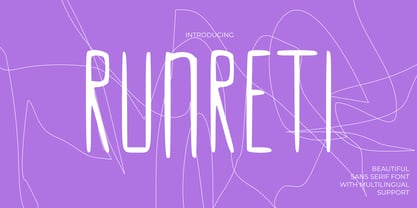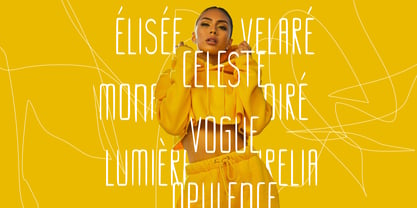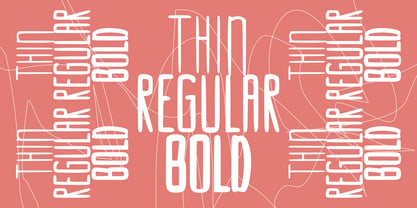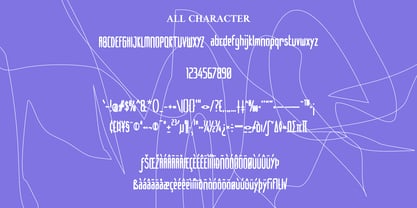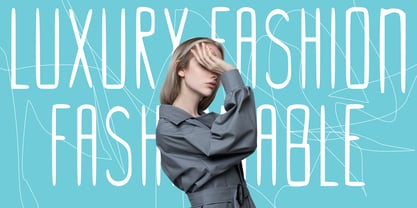
Runreti
by Mei Suseno
The Runreti Font Family was designed by Wahyu Eka Prasetya, Mei Suseno and published by Mei Suseno. Runreti contains 3 styles and family package options. More about this family
This font features a tall, condensed, and highly stylized display design with a futuristic and experimental feel. Its elongated letterforms and geometric structure create a strong visual identity that stands out in modern and creative projects. The font combines sharp edges with smooth curves, giving it a unique balance between elegance and sci-fi aesthetics.
Perfect for posters, branding, music covers, fashion editorials, digital art, and futuristic themes, this typeface delivers a bold and artistic personality. The extended characters, decorative symbols, and multilingual accents make it versatile for both creative and international design use.
Designers: Wahyu Eka Prasetya, Mei Suseno
Foundry: Mei Suseno